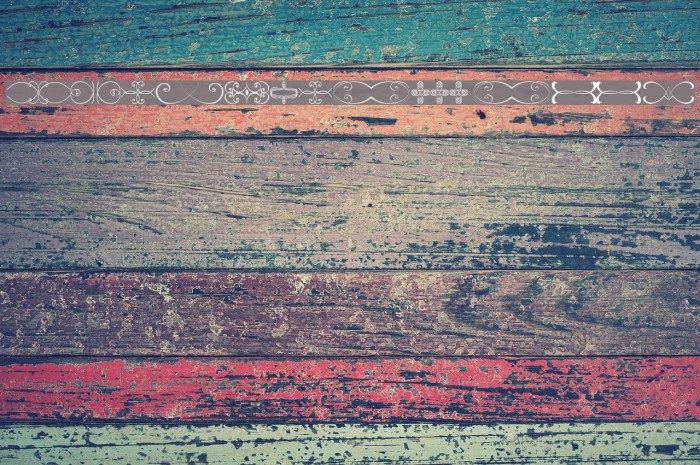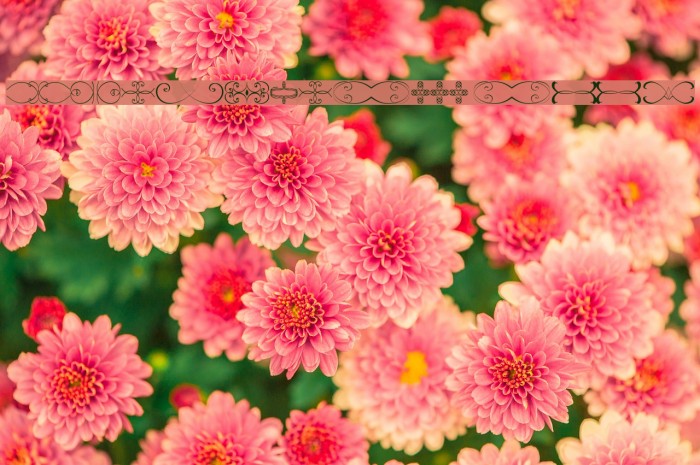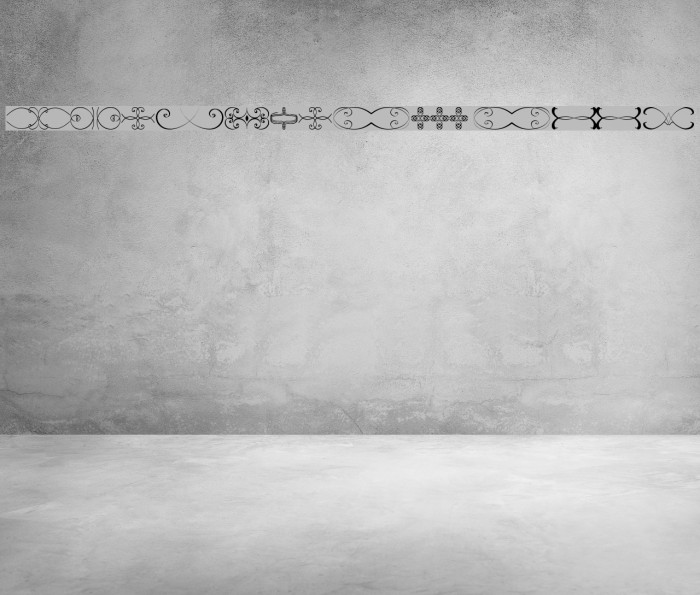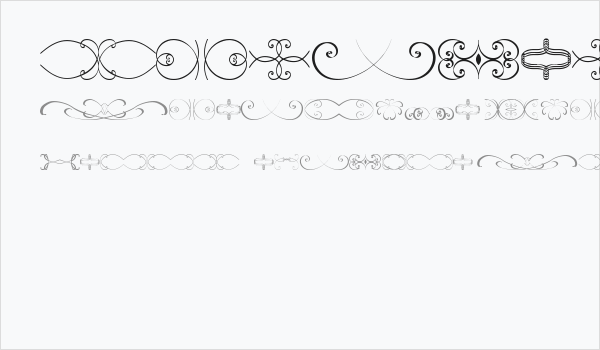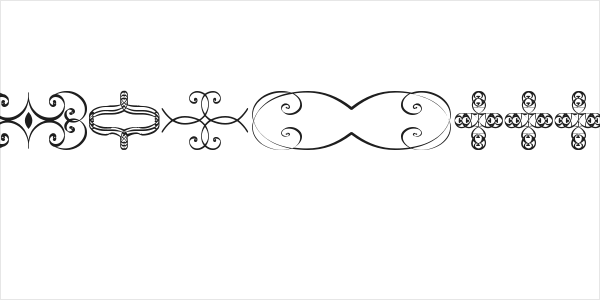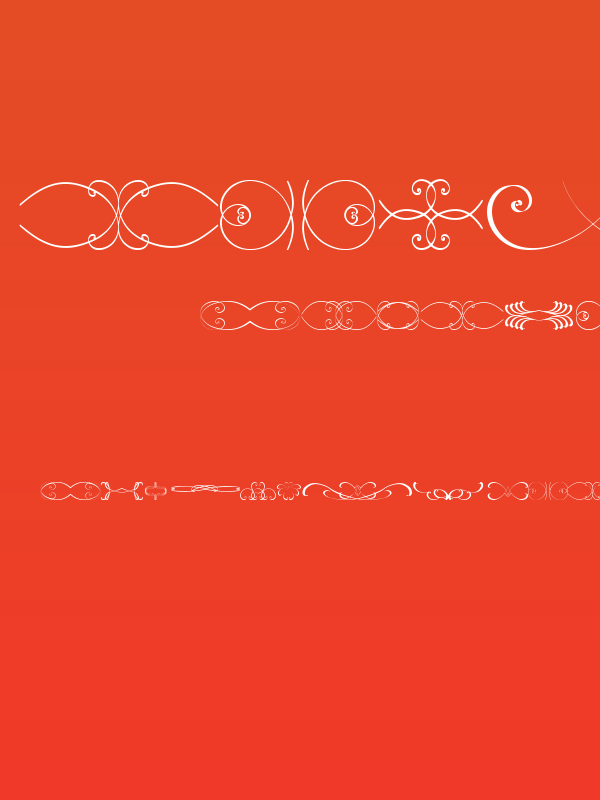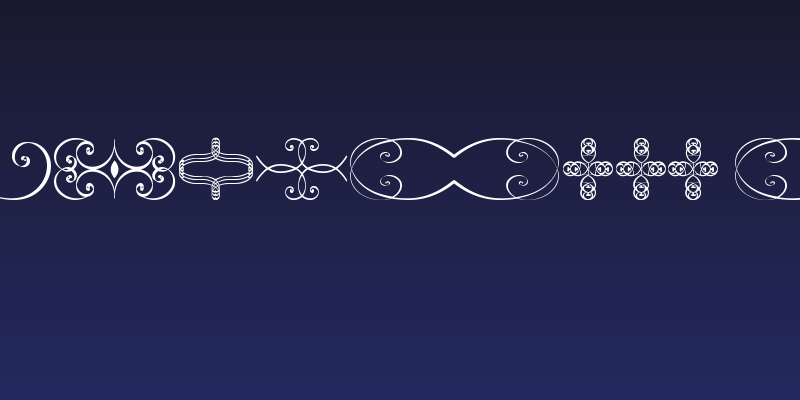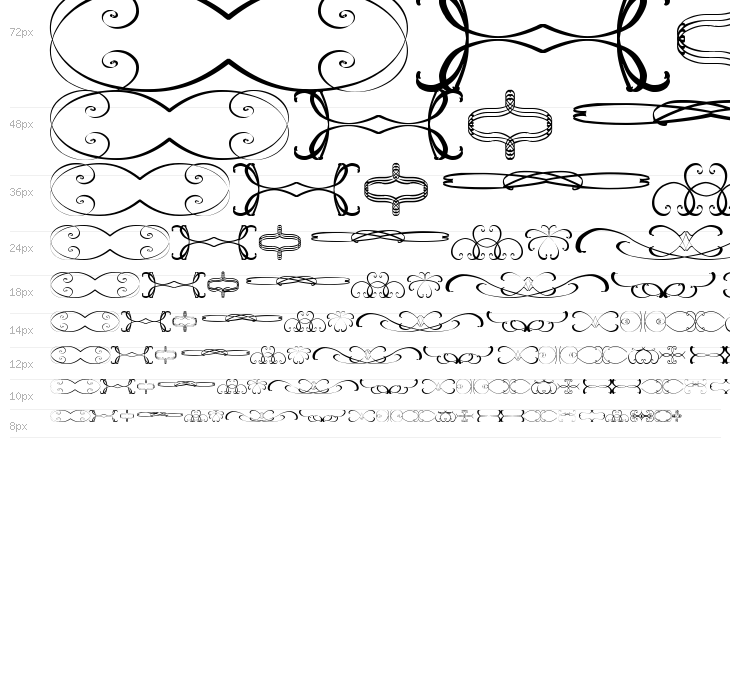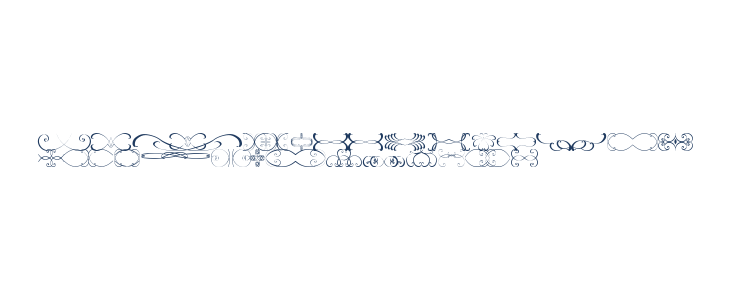
Ornamentsss tfb Font
Ornamentsss tfb Description
This is a decorative font composed entirely of intricate ornamental designs. Each character is represented by a unique flourish or embellishment, creating an elegant and artistic appearance. The designs are symmetrical and feature a variety of curves, loops, and intricate details, reminiscent of vintage calligraphy and classical engravings. This font is ideal for adding a touch of sophistication and elegance to any project, making it perfect for invitations, certificates, or any design that requires a decorative touch.
| Use Case | Decorative elements, Artistic designs, Invitations |
| Proposed Projects | Ideal for wedding invitations, certificates, decorative borders, and artistic design projects. |